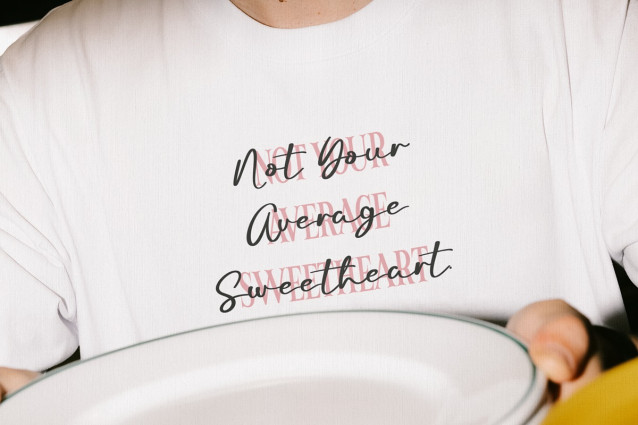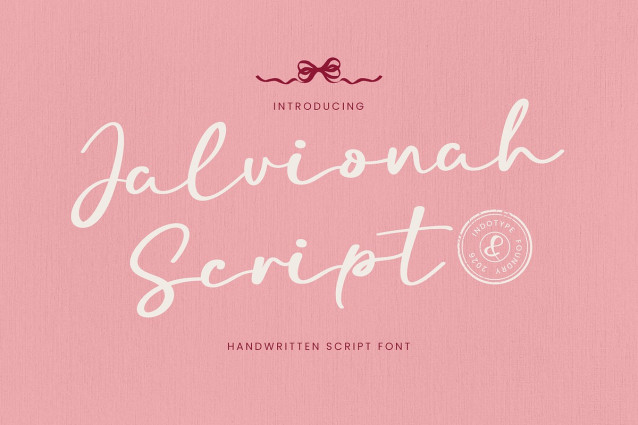
IT Jalvionah Font
IT Jalvionah Font is an exquisitely crafted handwritten script font that embodies grace, sophistication, and timeless beauty. Its fluid, connected letterforms feature elegant swashes, delicate terminals, and a natural variation in stroke weight that mimics the artistry of pointed pen calligraphy. This font strikes the perfect balance between organic flow and refined control, making it feel both personal and professionally luxurious. Designed for projects that demand an air of romance and sophistication, Jalvionah is the ideal choice for luxury wedding invitations, high-end beauty branding, fashion labels, and any design that seeks to convey elegance and heartfelt craftsmanship. It adds a touch of bespoke, handcrafted luxury to logos, packaging, and stationery, turning words into works of art.